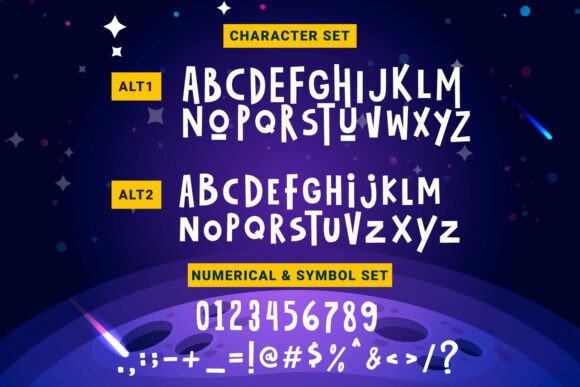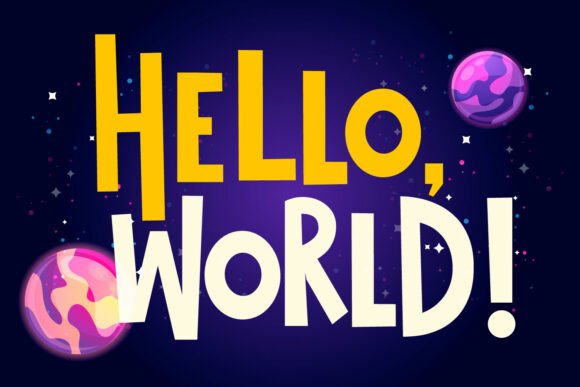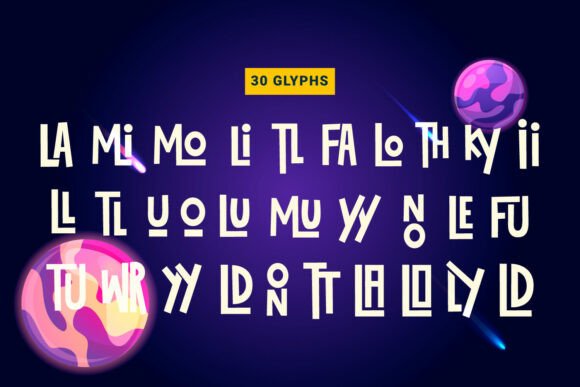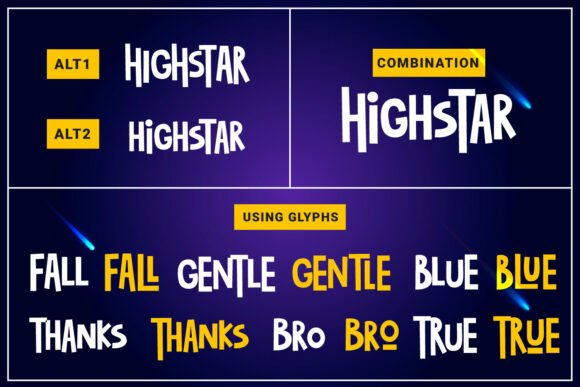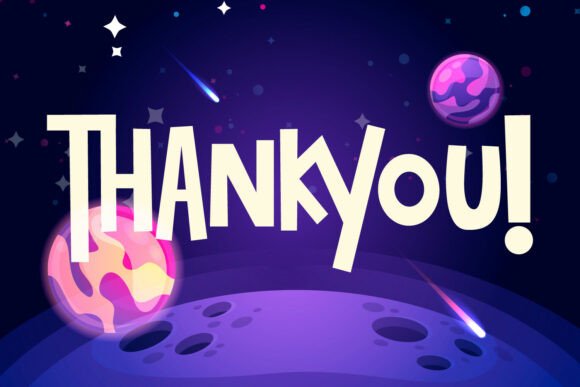
Introduction to High Star Font
As you sit at your desk, staring blankly at a blank canvas, you’re hit with a sudden spark of inspiration. You envision a bold, eye-catching design that commands attention and makes a lasting impression. The perfect font has been elusive, until now. Enter High Star Font, an all-caps display typeface designed to elevate your creative project to new heights.
This powerful typeface boasts a strong presence and sharp details, making it perfect for bold headlines, modern logos, striking posters, and statement branding. With its high quality design and transparent background, High Star Font is a valuable resource for designers looking to take their work to the next level. Plus, with 2 unique stylistic alternates and 30 additional glyphs and symbols, you have the flexibility to mix and match for a truly unique look.
Key Features of High Star Font
- High-quality font with a transparent background, allowing for seamless integration with various design elements.
- Includes 5 unique font styles, each with its own distinct character and design flair.
- High-resolution design, perfect for printing and digital use, with a resolution of 300 DPI and above.
- Perfect for use in various design contexts, including logos, branding, and creative projects, due to its high-quality and unique design.
Honest Review: High Star Font
- ✨ High-quality design: The font is crisp and clean, making it perfect for any design project.
- ✨ Transparent background: This feature allows for seamless integration with any background image or color.
- ✨ Wide range of uses: The font is versatile and can be used for various design applications, from logos to digital signage.
However, there are a few limitations to consider: ⚠️ The font family is relatively small, which might limit its use in certain projects. Additionally, the font might not be suitable for very small text sizes due to its high-quality design.
Overall, I’m impressed with the High Star Font. It’s a great design resource that can elevate any creative project. With its high-quality design and transparent background, it’s a must-have for any designer. While it may have some limitations, it’s definitely worth checking out.
Tips for Getting the Most Out of High Star Font
Use the font in conjunction with other design elements, such as images and graphics, to create a visually appealing design. Experiment with different font sizes and colors to add depth and interest to your design.
Common Use Cases for High Star Font
The High Star Font is a versatile design resource that can be used in a variety of creative projects, including logos, business cards, brochures, and websites. Its transparent background and high-quality design make it a great choice for designers and non-designers alike.
Is the High Star Font suitable for high-resolution designs?
Yes, the High Star Font is designed to be high-quality and suitable for high-resolution designs. The font’s vector-based design ensures that it will scale up to large sizes without losing any detail or clarity. This makes it an ideal design resource for a wide range of creative projects, from business cards to billboards.